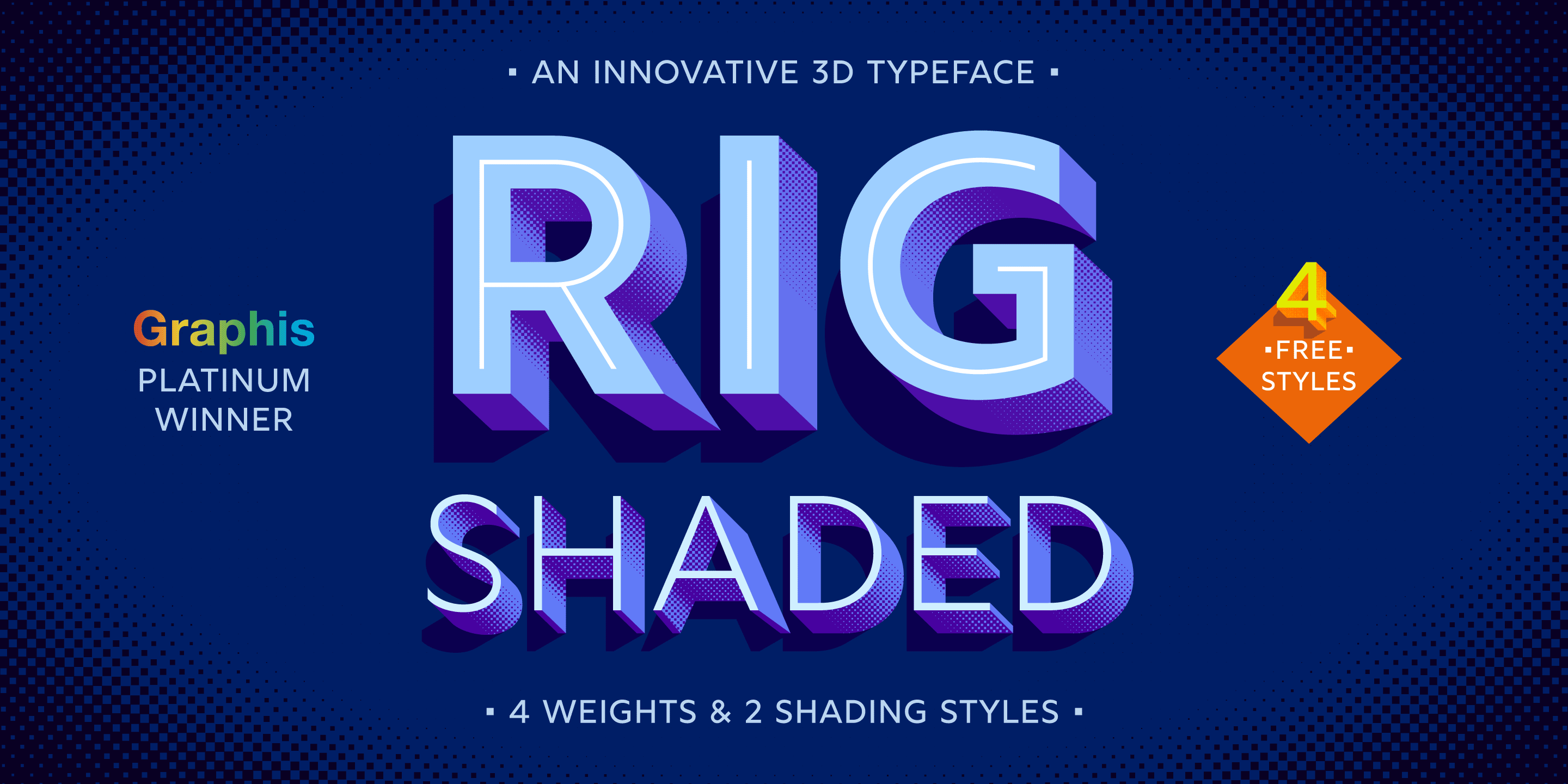
Rig Shaded Font is perfect for industrial equipment branding, oil drilling company communications, heavy machinery marketing, construction industry designs, petroleum sector promotions, rugged outdoor gear labels, mechanical engineering presentations, and tough industrial applications. This powerful typeface excels in applications requiring industrial strength and mechanical precision that captures the essence of heavy industry and drilling operations through robust visual character and industrial authenticity.
What makes Rig Shaded Font exciting is its commanding industrial presence that perfectly captures the essence of heavy machinery and drilling operations through powerfully structured letterforms with dimensional shading effects. The font features robust character construction with mechanical precision and industrial proportions that instantly conveys themes of strength, durability, and industrial power perfect for brands operating in heavy industry and mechanical engineering sectors.
The Rig Shaded Font family includes bold industrial weights and shaded variations with mechanical styling elements, offering designers comprehensive tools for creating powerful industrial compositions. The family provides consistent rugged aesthetic with varying dimensional effects for versatile industrial communications and heavy machinery branding projects requiring genuine mechanical character and drilling industry appeal.
The powerfully engineered letterforms of Rig Shaded Font ensure maximum industrial impact while maintaining mechanical authenticity and drilling industry credibility, making it suitable for both large industrial displays and detailed technical communications. This robust typeface combines industrial heritage with modern usability standards for outstanding performance in contemporary design projects requiring genuine mechanical character and commanding industrial presence.